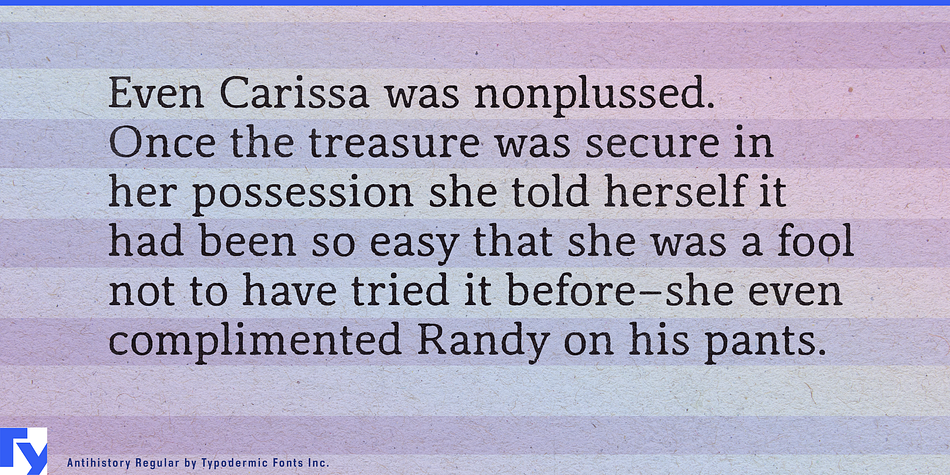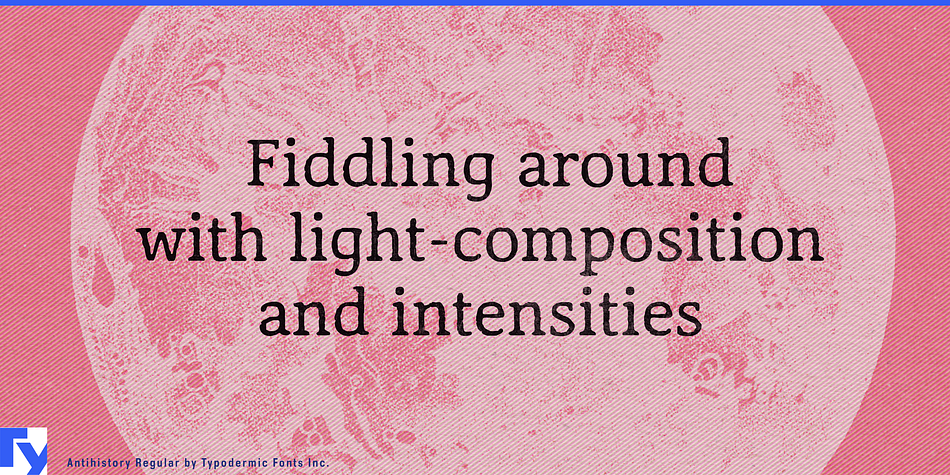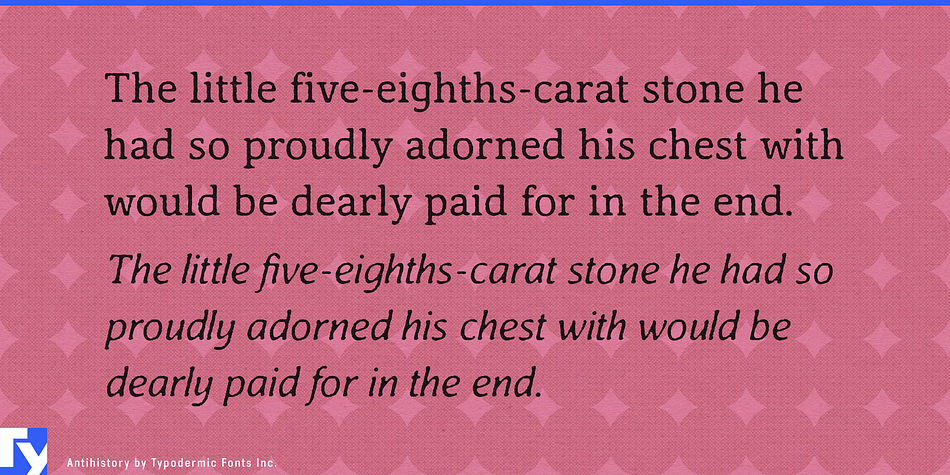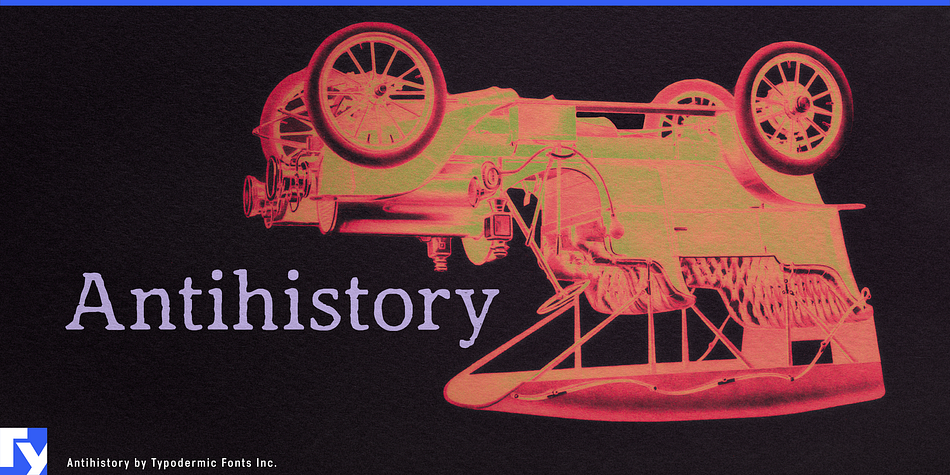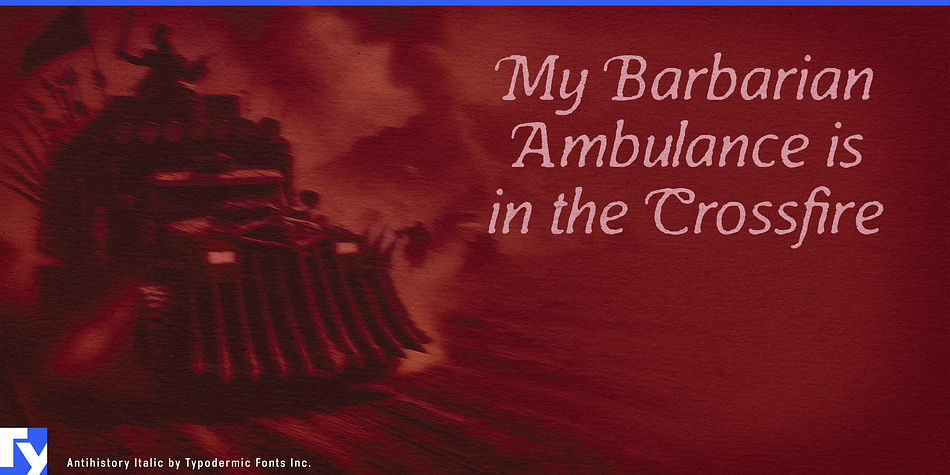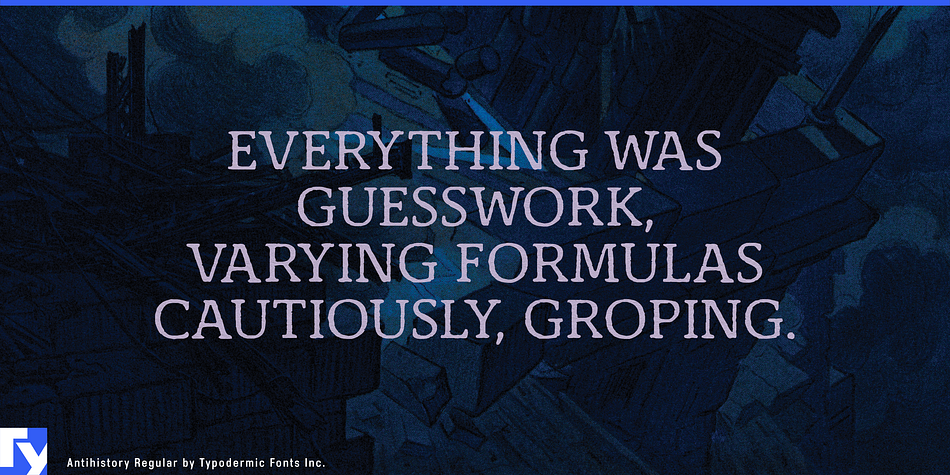
Antihistory is a historical and display serif font family. This typeface has two styles and was published by Typodermic Fonts Inc.
Antihistory is a distressed, antique typeface. Most antique typefaces are based on designs which were created prior to the mid twentieth-century. Antihistory was designed to look like an antique type from the late twentieth-century and beyond. It’s available in Regular and Italic styles.